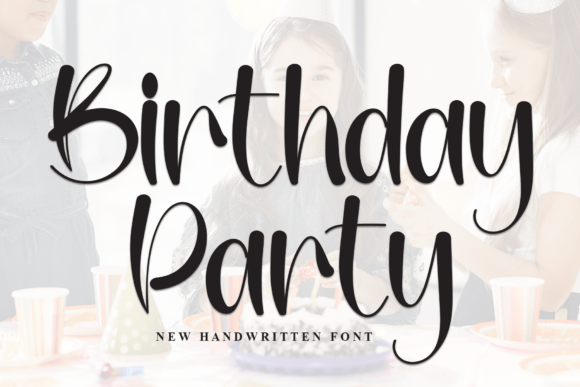
Adding a Touch of Elegance to Your Designs
As designers, we’ve all been there – staring at a blank canvas, trying to bring our creative vision to life. It’s in these moments of inspiration that we discover the perfect font, and our design takes shape. For those seeking a stylish script font that exudes artistic flair, the Birthday Party Font is an ideal choice. Its fluid brush strokes and dynamic curves evoke the essence of hand-painted calligraphy with a modern twist.
Whether you’re crafting logos, invitations, packaging, or social media graphics, the Birthday Party Font adds a creative and sophisticated touch to any design. Its natural flow and vibrant character deliver both visual impact and versatility, making it a valuable addition to any designer’s toolkit. By incorporating the Birthday Party Font into your next project, you’ll be sure to leave a lasting impression on your audience.
Birthday Party Font Key Features
- Unique Characteristics: The Birthday Party Font features a playful and whimsical design, with bold and colorful lettering that’s perfect for celebrating birthdays and other special occasions.
- Number of Glyphs: The font includes a wide range of glyphs, including uppercase and lowercase letters, numbers, punctuation marks, and special characters, making it versatile for various design applications.
Birthday Party Font Review
Overall, I was excited to dive into the Birthday Party Font, hoping it would bring a fun and playful vibe to any design project. ✨ Here are some aspects that work well:
- The font is super easy to read, even in smaller sizes.
- It’s perfect for designs that need a touch of whimsy and celebration.
- The font family includes a range of weights and styles, making it versatile for various design applications.
- The font might be too sweet or childish for more serious or corporate designs.
- The lack of advanced features, like ligatures or opentype, may limit its use in more complex typography projects.
- The font’s design can be overwhelming if used in large blocks of text.
In conclusion, the Birthday Party Font is a great addition to any designer’s toolkit, especially for projects that require a playful touch. While it may have its limitations, it’s a solid choice for designs that need a fun and celebratory vibe.
The Birthday Party Font is perfect for:
- Birthday invitations and party decorations.
- Children’s party banners and signs.
- Themed party decorations and accessories.